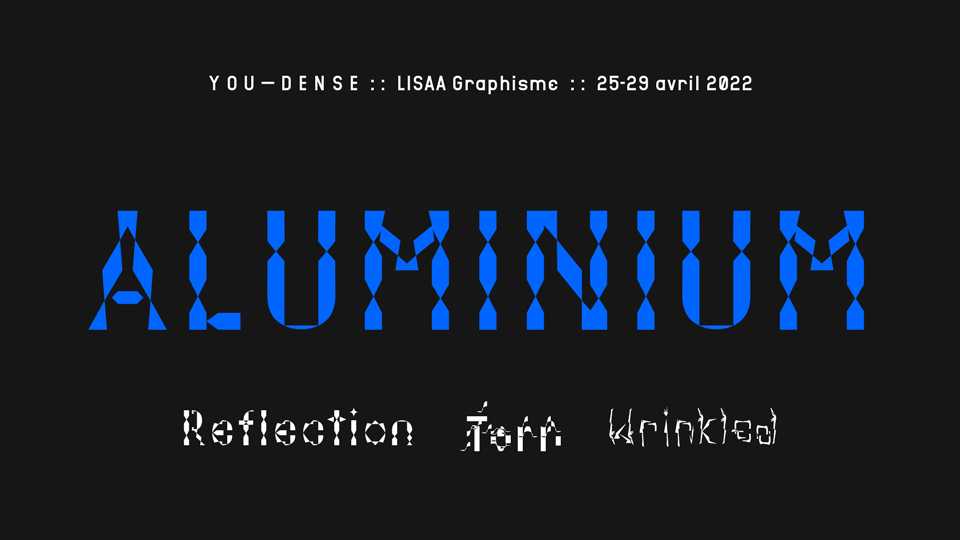
Download You Dense Aluminium font, part of the super type family of 16 typefaces designed during a workshop given by Lucas Descroix and Benjamin Dumond at LISAA Paris in April 2022. The typeface is based on the density of Aluminum material, and composed of three cuts that interpret this density in different ways.